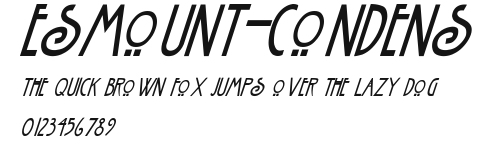
Esmount-Condens Preview
About Esmount-Condens.ttf
Esmount-Condens.ttf is a modern, elegant sans-serif font designed for ultimate readability and visual harmony. Perfect for branding, headlines, web design, and print materials.